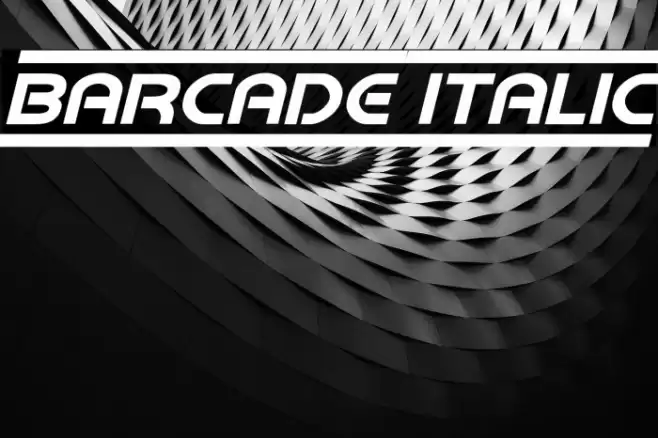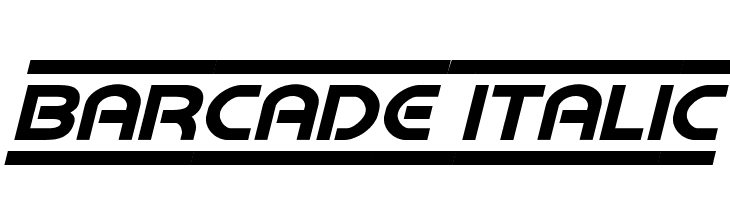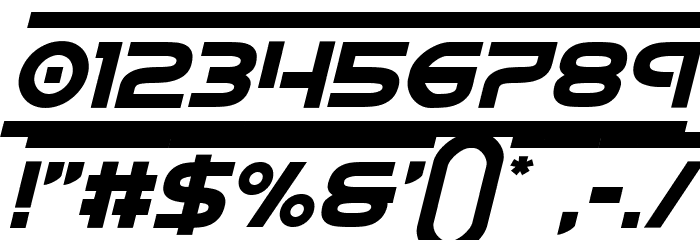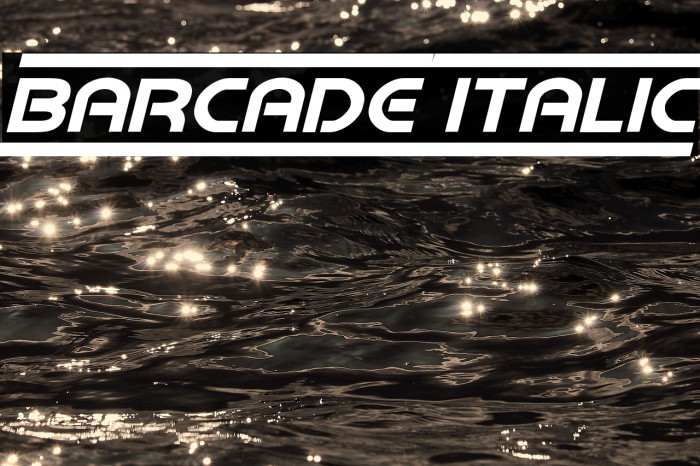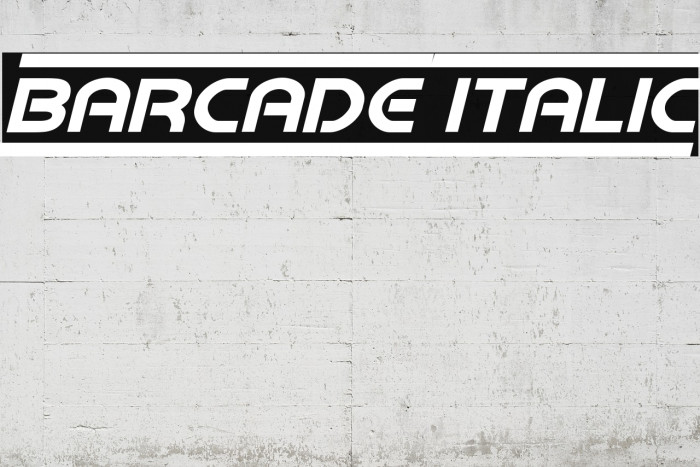
Barcade Italic Font
Barcade Italic Description
This font features a bold, italicized style with a futuristic and dynamic appearance. The characters are designed with a forward slant, giving a sense of motion and speed. The strokes are thick and consistent, providing a strong visual impact. The uppercase and lowercase letters maintain a uniform height, contributing to a cohesive look. The numerals and special characters follow the same design principles, ensuring a harmonious overall appearance. The font's geometric shapes and clean lines make it suitable for modern and tech-oriented projects.
A bold, italicized font with a futuristic and dynamic style from Uncategorized fonts.